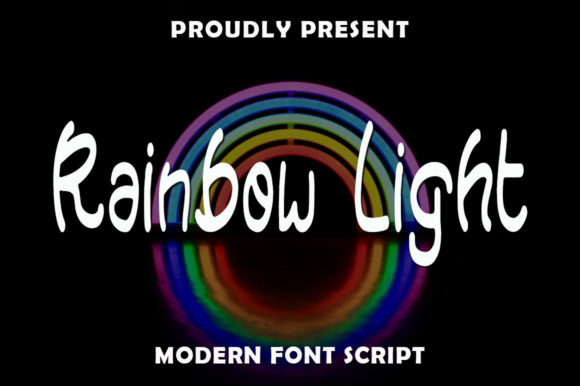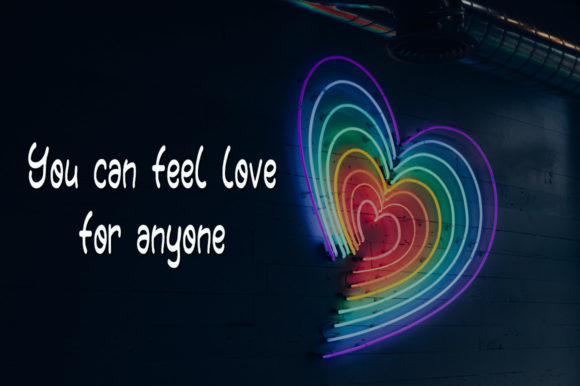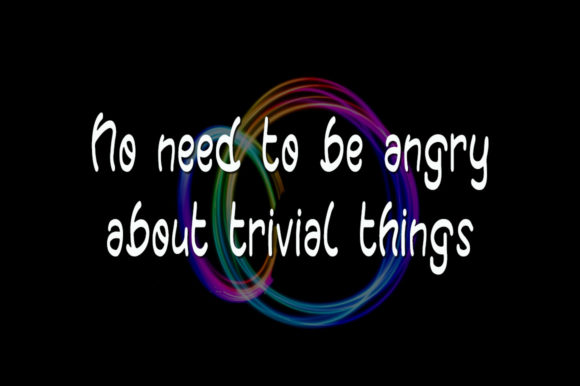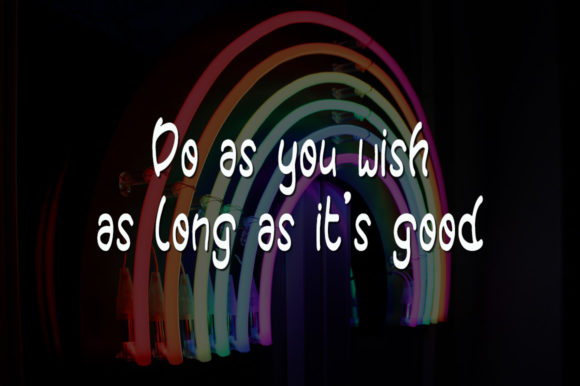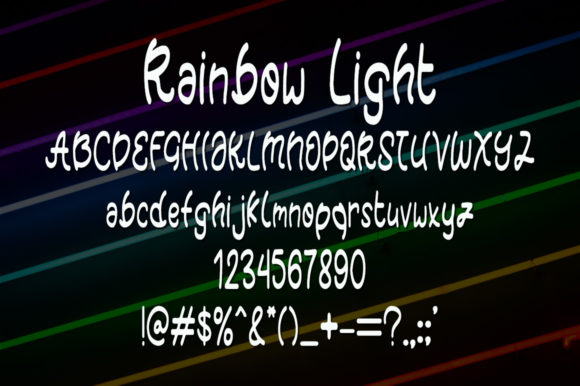
Rainbow Light Font
About Rainbow Light Font
Rainbow Light is a friendly handwritten font. Fall in love with its incredibly distinct and timeless style and use it to create spectacular designs!